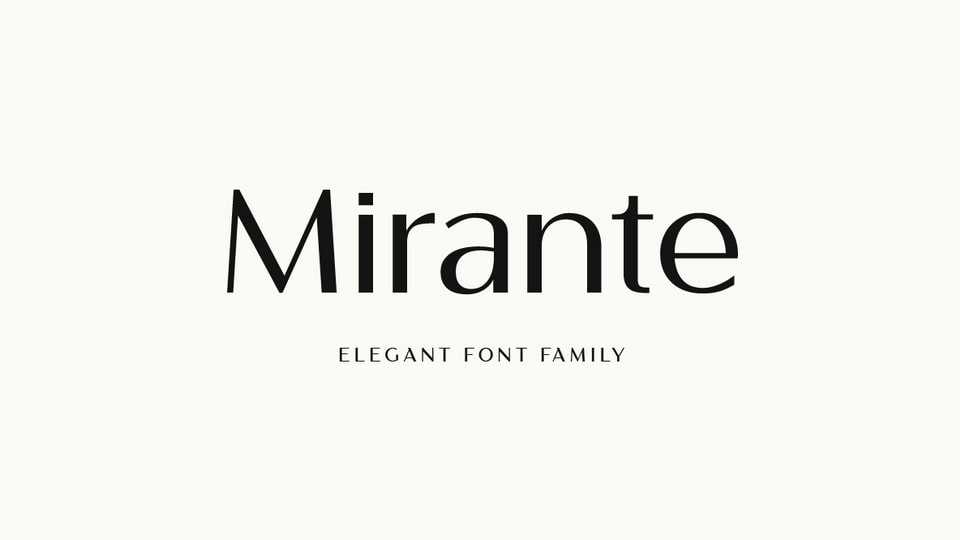
Download Mirante Sans Serif font, the perfect embodiment of modern typographical elegance. With different variations but still consistent in aesthetics, Mirante font family offers great design flexibility.
Designer: Yukita Creative